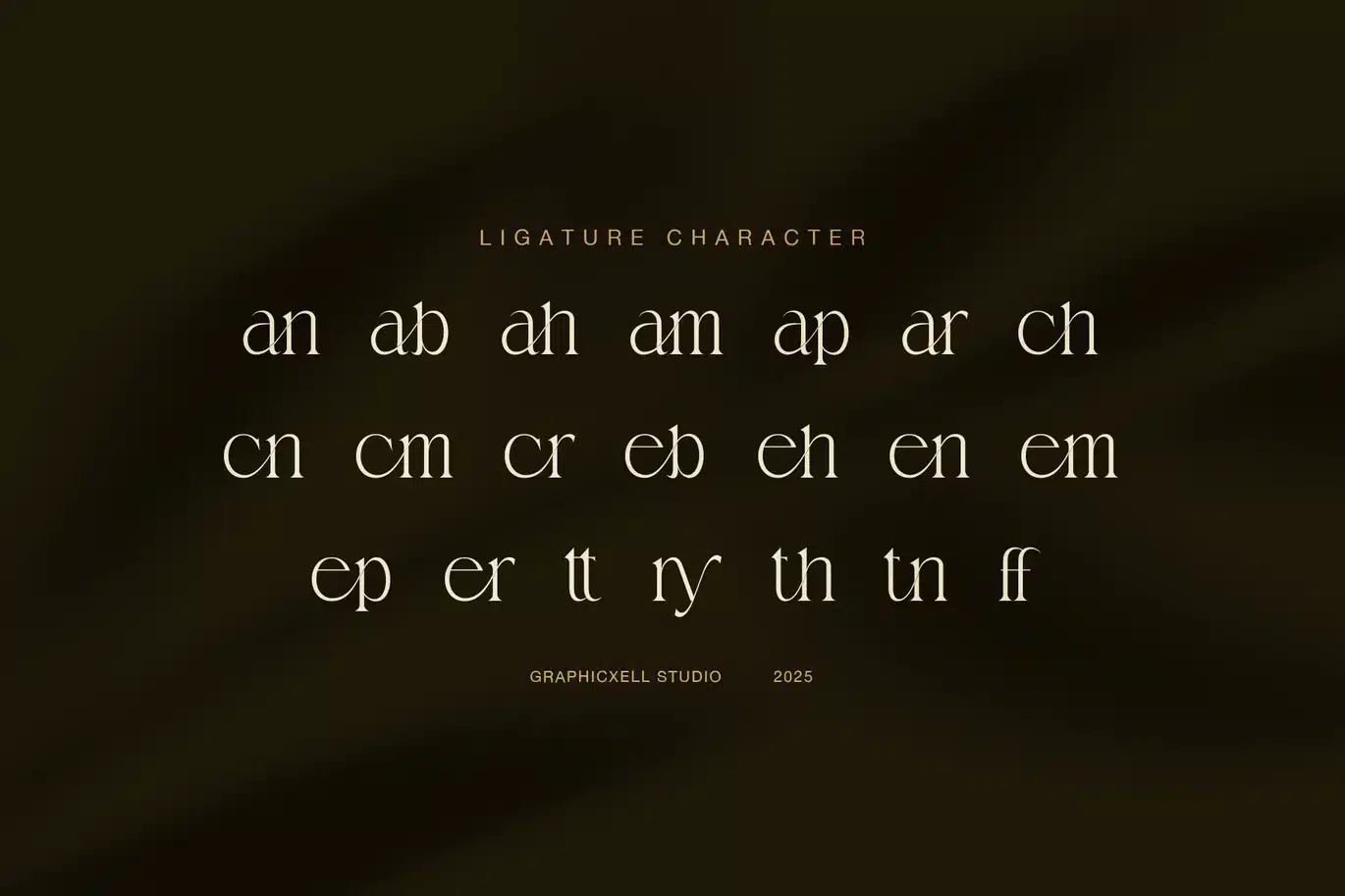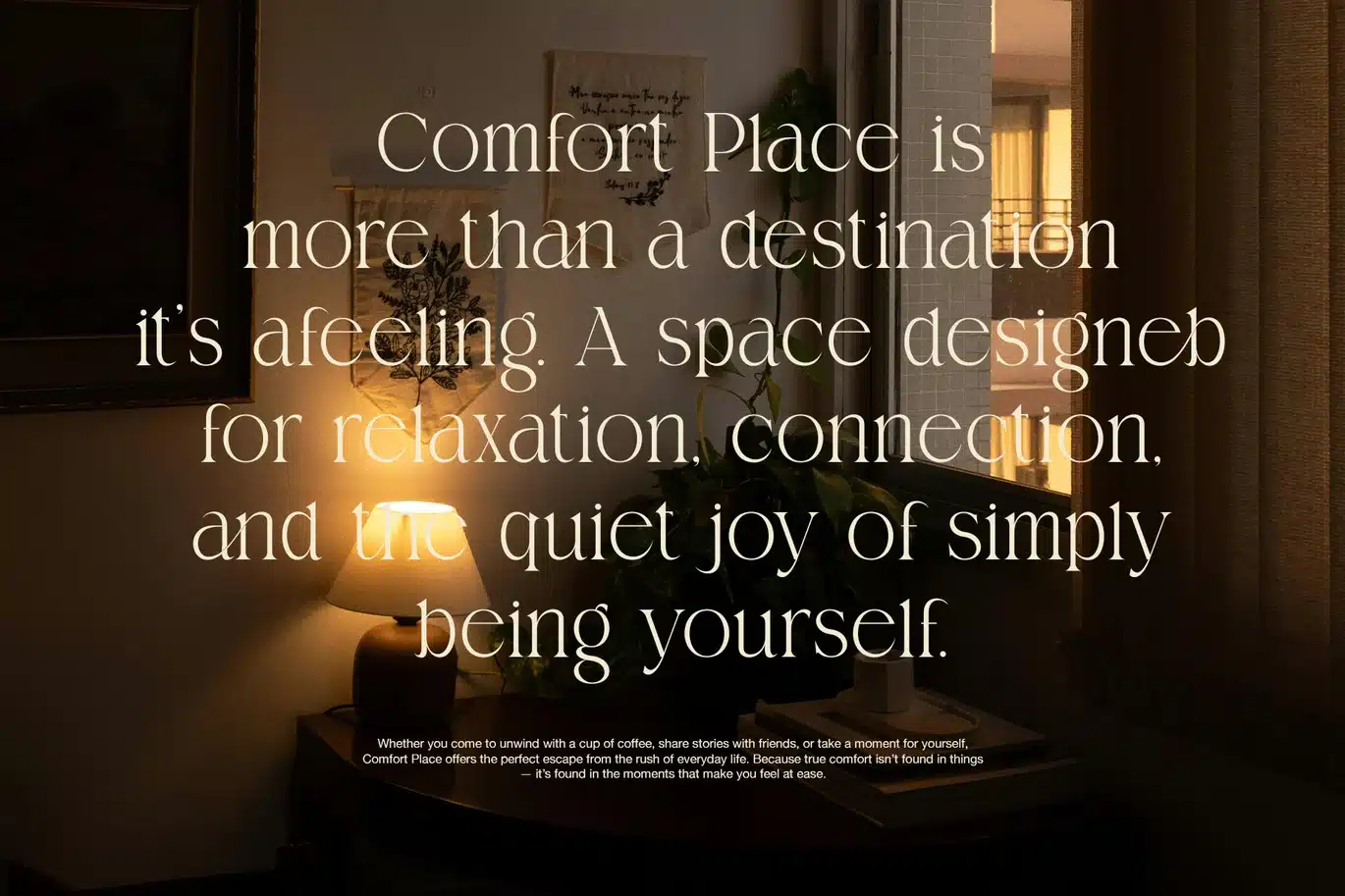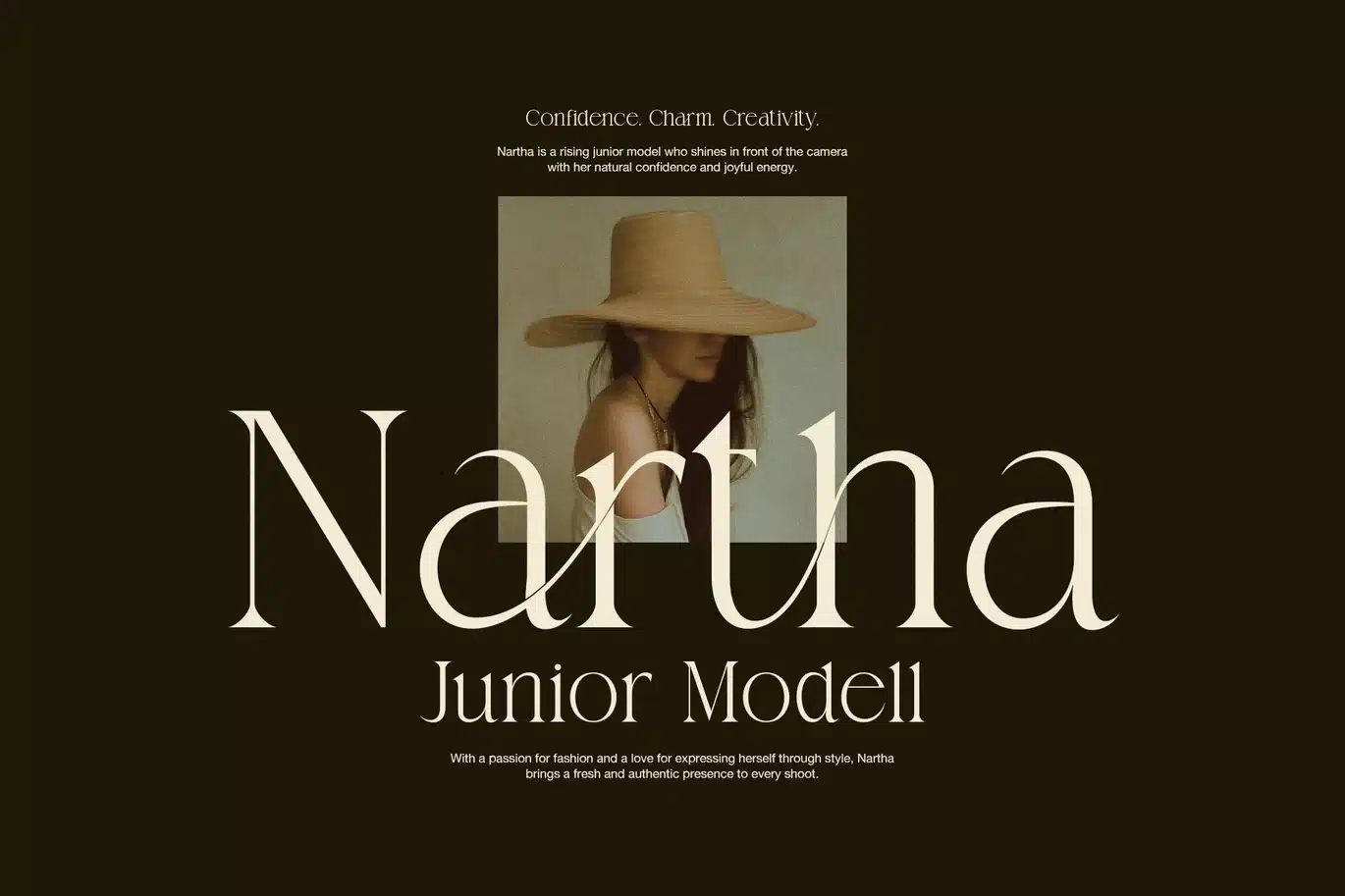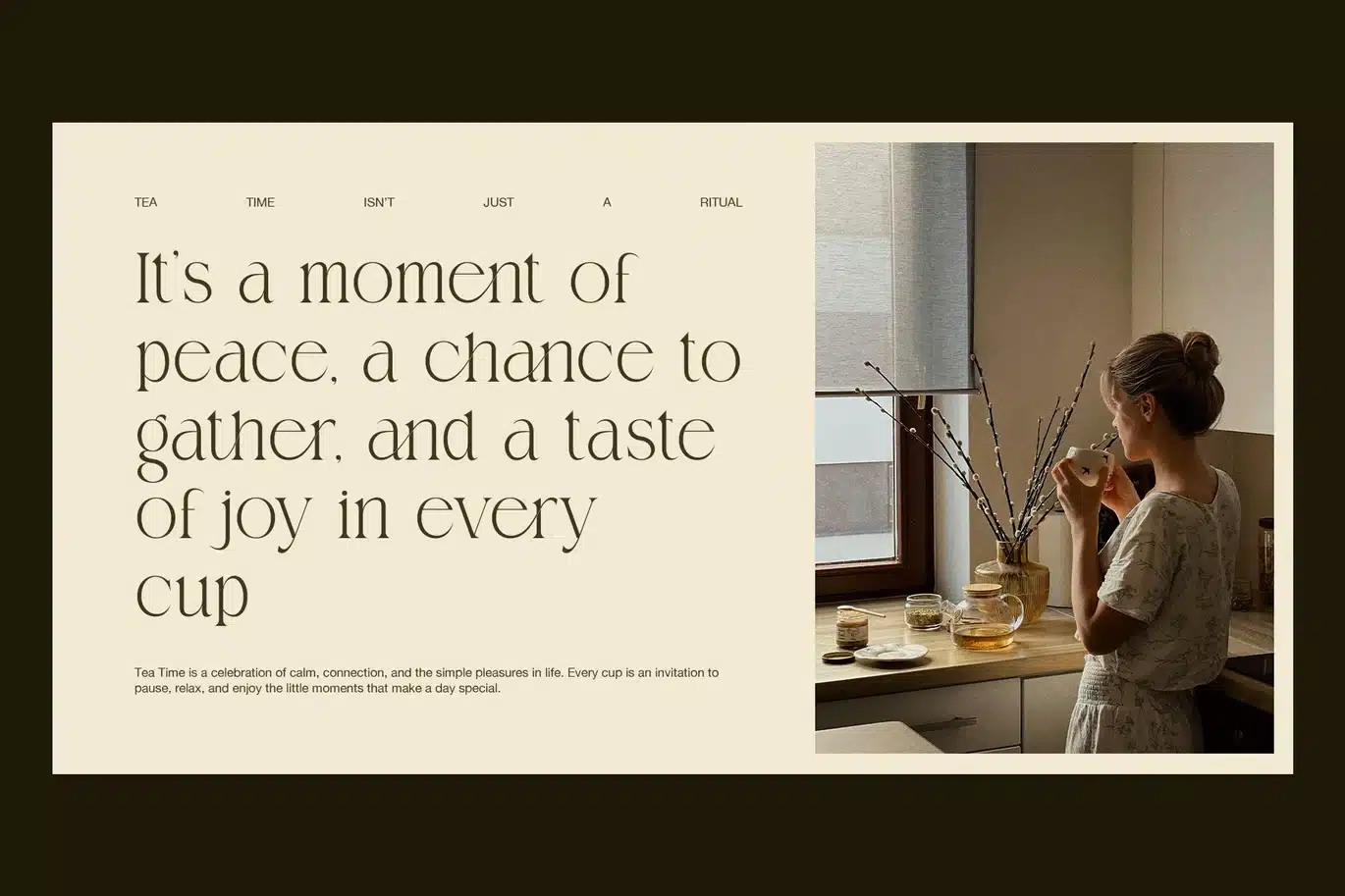
Mandiry Elegant Serif Font
A Timeless Elegant Serif for Modern Storytelling
Mandiry is an elegant serif font designed to bring calm confidence and refined beauty into every design. From the first letter to the final ligature, this font expresses balance, softness, and intention. Therefore, it feels natural in both editorial and branding layouts. At the same time, it remains strong enough for modern digital use.
Mandiry blends classic serif structure with gentle curves and graceful proportions. As a result, each letter feels warm, personal, and visually inviting. Moreover, the smooth contrast between thick and thin strokes creates a premium look without feeling heavy. Because of this balance, Mandiry works beautifully across many creative fields.
Designed for Editorial, Lifestyle, and Branding
This elegant serif font shines in headlines, magazines, and high-end branding. However, it also performs well in longer text when paired carefully. Whether you design fashion editorials, interior layouts, or lifestyle campaigns, Mandiry delivers clarity and charm.
In addition, the font includes clean punctuation, refined numerals, and well-crafted ligatures. Therefore, your typography feels polished and professional in every detail. Even better, these features help designers create smooth word flow and strong visual rhythm.
Where Mandiry Works Best
Mandiry adapts easily to different creative needs, including:
Editorial design and magazine headlines
Fashion branding and luxury logos
Interior design presentations
Lifestyle websites and blogs
Restaurant, café, and boutique branding
Wedding invitations and stationery
Social media visuals and hero text
Why Choose Mandiry?
Because Mandiry focuses on elegance and readability, it helps your message feel intentional and emotional. Additionally, its timeless design ensures long-term relevance. Instead of following trends, Mandiry creates atmosphere, mood, and trust.
Ultimately, Mandiry is more than a serif font. It is a storytelling tool that turns simple words into refined visual experiences.